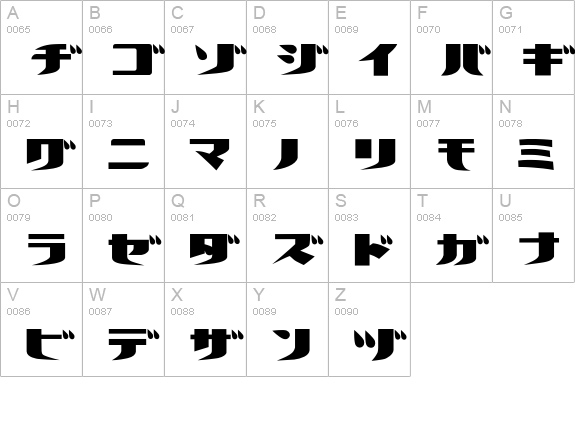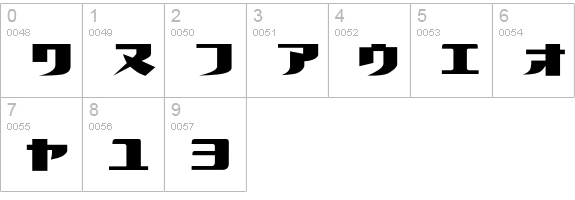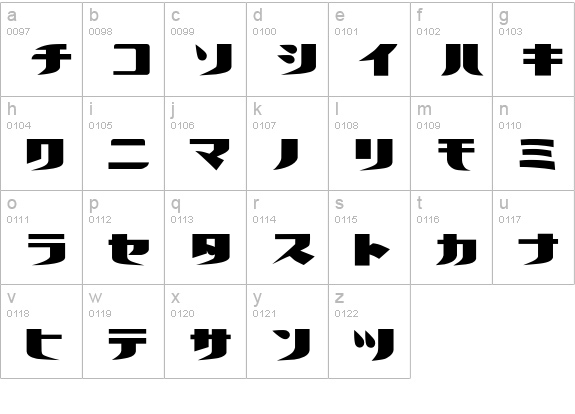
Futalic Font Details
Futalic font is a sleek and modern typeface that exudes a sense of sophistication and creativity. Its clean lines and sharp angles make it perfect for a wide range of design projects, from branding to editorial layouts. The geometric shapes of the letters give Futalic a futuristic vibe that is sure to make your text stand out. What's even better is that Futalic font is available for free download at FontsMarket.com. This means you can easily access this stylish typeface without any cost, making it a valuable addition to your font collection. Don't miss out on the opportunity to enhance your designs with the contemporary flair of Futalic font. Download it today and start creating stunning visuals that leave a lasting impression.